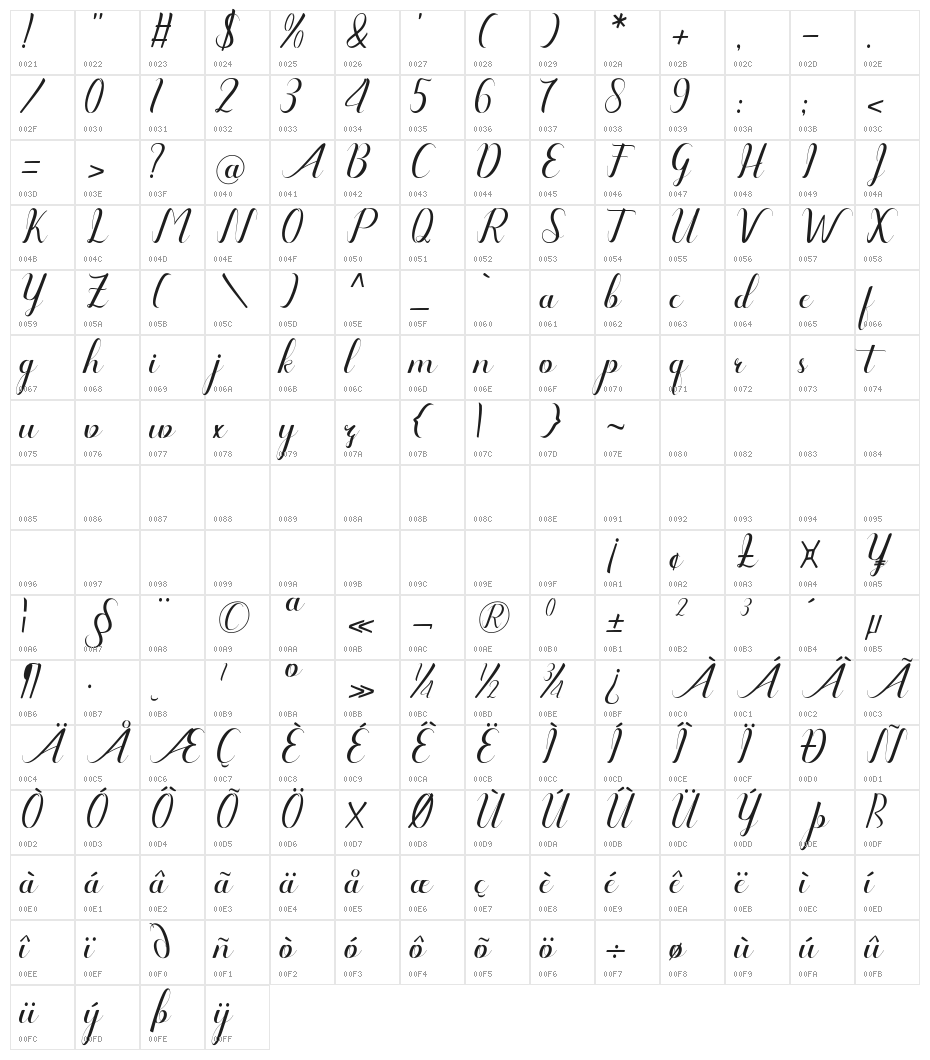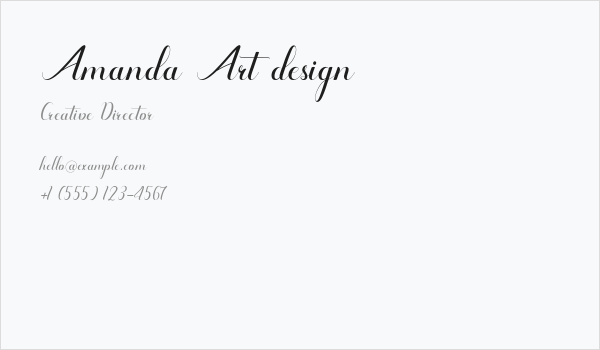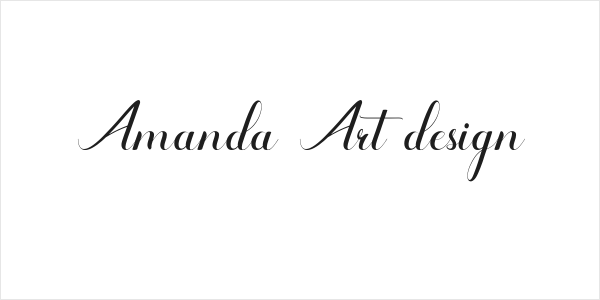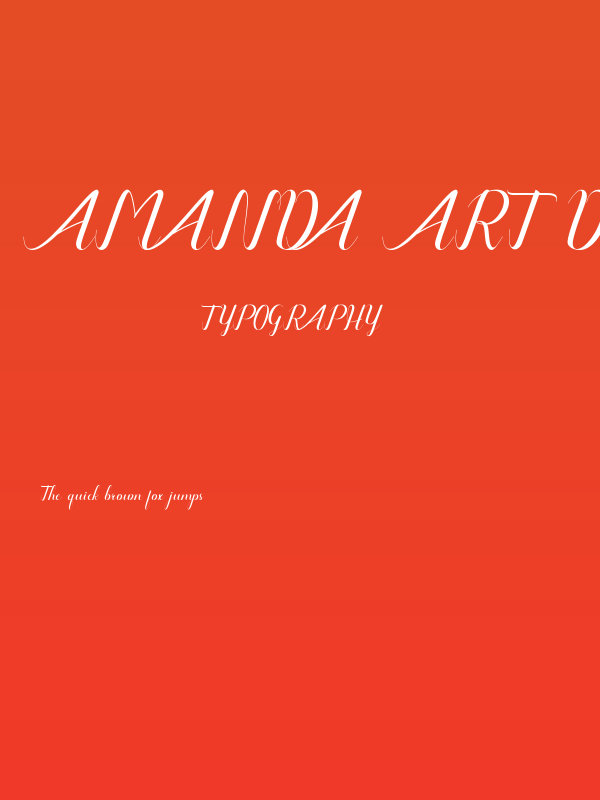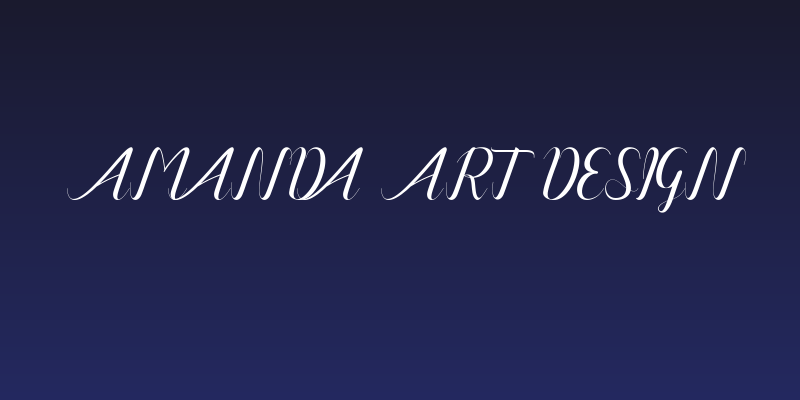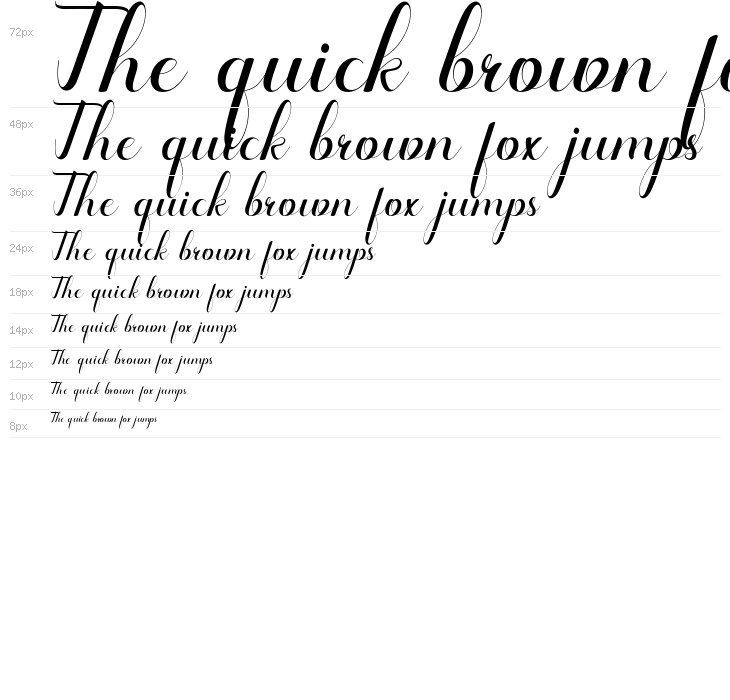
Amanda Art design Font
Amanda Art design Description
This elegant script font features a flowing, cursive style with high contrast between thick and thin strokes. The uppercase letters are ornate and sweeping, while the lowercase letters maintain a graceful and connected appearance. The numerals and special characters complement the overall aesthetic, adding a touch of sophistication. The font's design is reminiscent of classic calligraphy, making it suitable for formal and decorative purposes. Its intricate details and stylish curves make it ideal for projects that require a touch of elegance and refinement.
| Proposed Projects | Wedding invitations, luxury branding, elegant packaging, formal event programs, and decorative signage. |